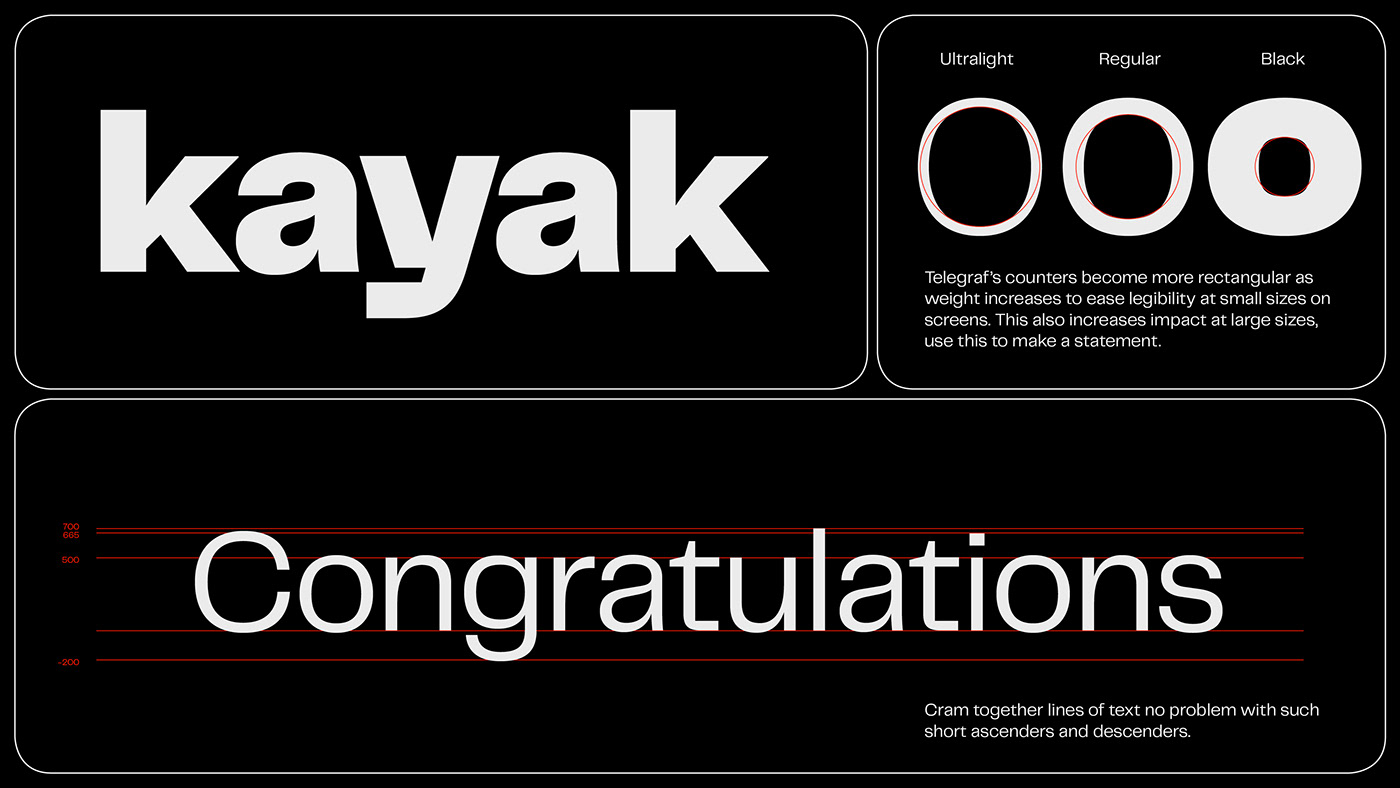
Telegraf Free Font is a font family, designed by FaceType. Telegraf combines the forms of mid-century grotesks with rigid angles. ● As its weight increases, Telegraf’s counters become more rectangular, to help with on-screen viewing at small sizes, and to increase impact at large sizes. It would defined itself as a well-planted modern grotesk with a powerful presence and a touch of brutalism ▲ Suitable for both large-scale and indie projects.